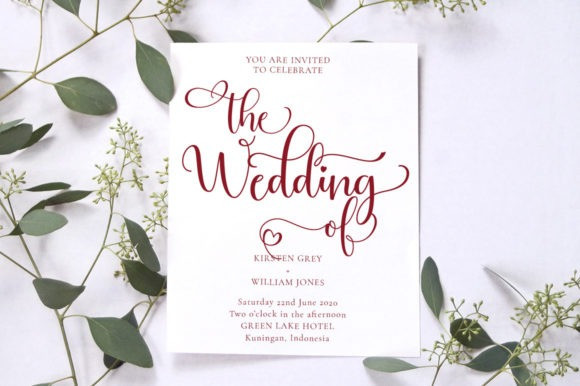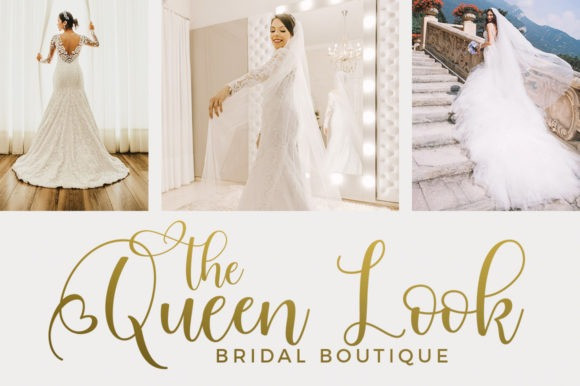
Hilland Script Font
Hilland is a light and fresh handwritten font that will inspire any design project with its incredibly romantic feel.
The alternative characters were divided into several Open Type features such as Swash, Stylistic Sets, Stylistic Alternates, Contextual Alternates. The Open Type features can be accessed by using Open Type savvy programs such as Adobe Illustrator, Adobe InDesign, Adobe Photoshop Corel Draw X version, And Microsoft Word. And this Font has given PUA unicode (specially coded fonts). so that all the alternate characters can easily be accessed in full by a craftsman or designer.